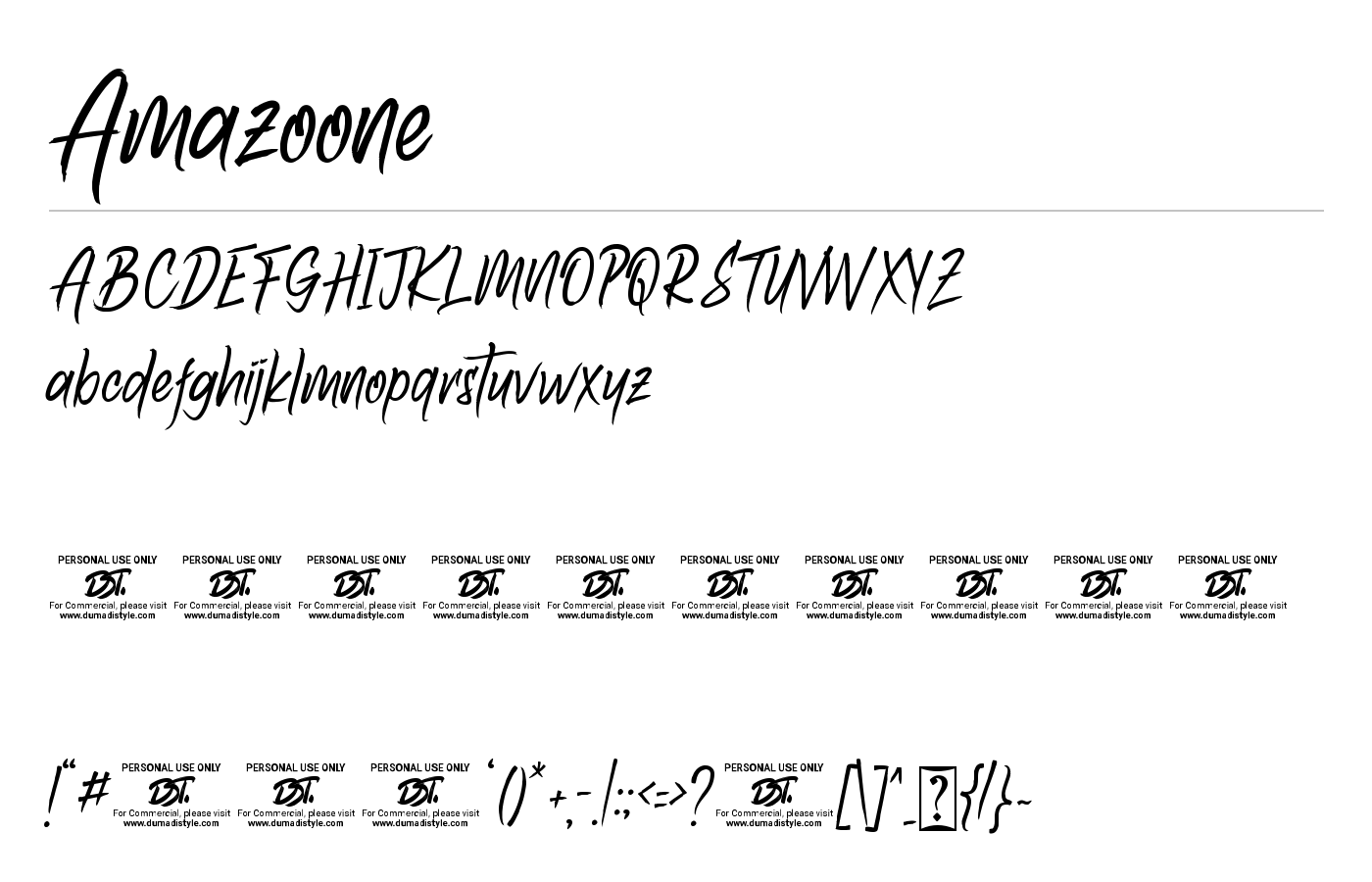
Amazoone is a lively script font with an energetic, hand-brushed style that feels casual yet dynamic. Its slender strokes and slightly textured edges give it a natural, personal touch, perfect for adding personality to branding, posters, or creative projects where a modern, artistic vibe is desired. This font works beautifully for headlines, logos, and packaging that aim to convey creativity and individuality without feeling too formal.
Amazoone Font
About Amazoone Font
| Font family | Amazoone Font |
| Designer | Toni Dzulham |